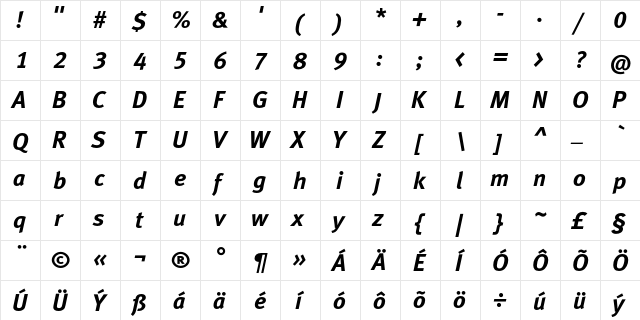
MetaBoldCELF Italic
Design Context for MetaBoldCELF Typeface
MetaBoldCELF takes a measured approach to typography — its balanced proportions and neutral character make it a reliable workhorse for both digital and print work. Its italic angle brings a sense of urgency and motion to the letterforms. Its bold stroke weight gives it real presence on the page.
Pro Tip: Use MetaBoldCELF for emphasis, pull quotes, and subheadings where its slanted energy can add rhythm to the layout.